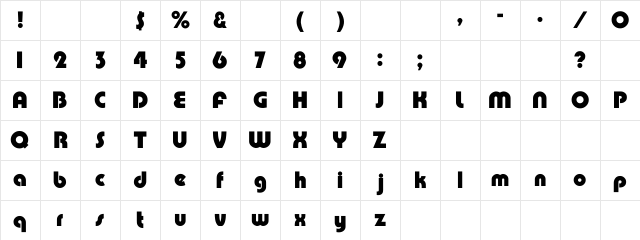
MarbleArch Regular
Design Context for MarbleArch
MarbleArch is a composed and adaptable typeface that performs quietly and consistently across a wide range of design contexts.